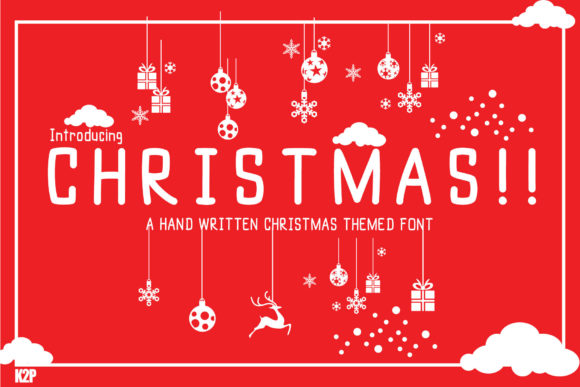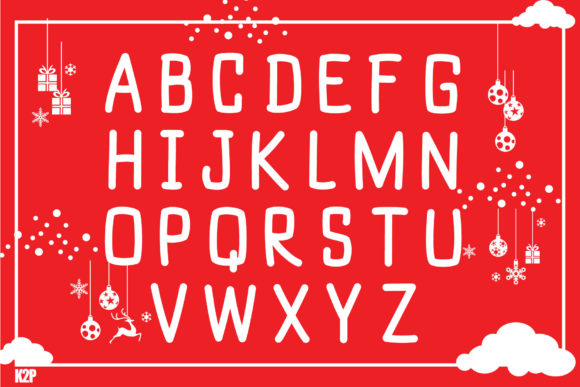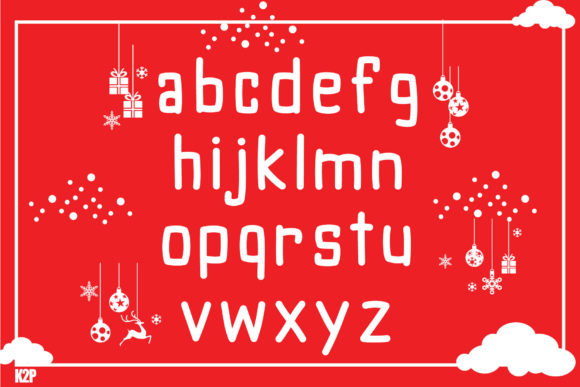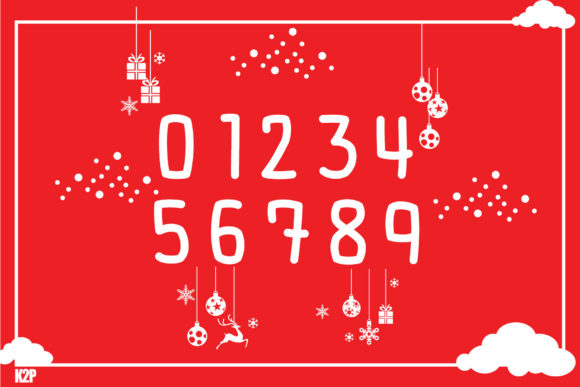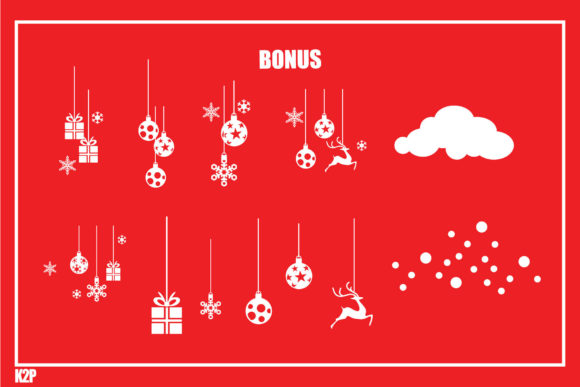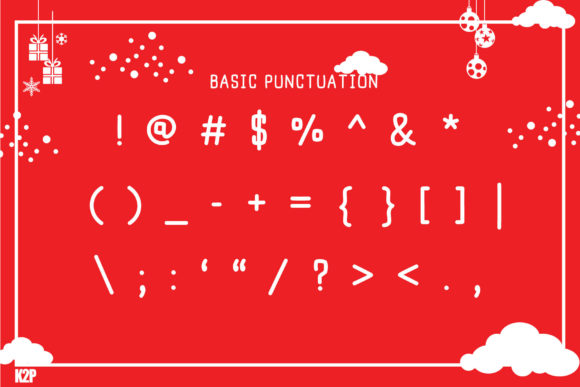
About Christmas!! Font
Christmas!! is a sweet and friendly handwritten font. Its natural and unique style makes it incredibly fitting to a large pool of designs. Add it confidently to your projects, and you will love the results.